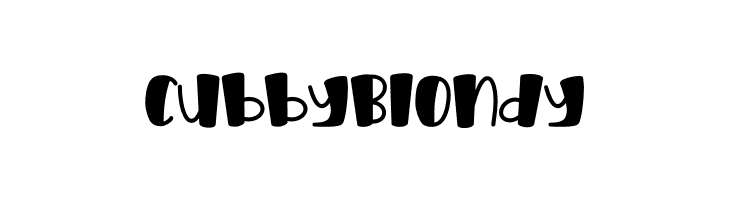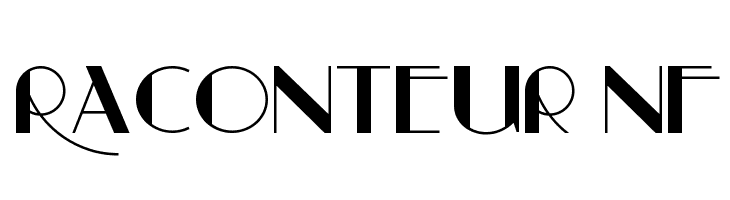
Bienvenue dans Polices Populaires — là où se rencontrent popularité et qualité. Voici les polices les plus téléchargées et utilisées cette année. Pour des choix sûrs (logos, web, social), commencez ici.
Chaque police phare se distingue par équilibre, lisibilité et polyvalence. Vous trouverez des sans‑serifs modernes, des scripts élégantes, des serifs vintage et des displays minimalistes.
( Fonts by Marty Bee - www.martybee.com )
A gothic, spider web-inspired decorative font with sharp, jagged edges.
( Fontry - M.G. Adkins - www.thefontry.com/ )
A bold, geometric outline font with a modern, neon-like appearance.
A clean, modern sans-serif font with a thin weight and minimalistic design.
( Fonts by Md Shohail Bhuian )
A playful, bold font with rounded, thick strokes and a friendly appearance.
A clean, modern sans-serif font with consistent stroke width and balanced spacing.
( Fonts by Inermedia Studio )
A playful, bold, and bubbly font ideal for children's content.
( mightype - creativemarket.com/mightype )
An elegant, flowing script font with a natural handwritten style.
( Xane )
A whimsical and decorative serif font with playful curls and flourishes.
( Fonts by Graham Meade - GemFonts )
A decorative font with a hollow, zigzag outline for a bold, artistic look.
( Durango - www.facebook.com/durangofonts )
A bold, modern sans-serif font with clean lines and strong presence.
A playful, modern font with rounded, bold characters.
A dynamic and expressive script font with a fluid, handwritten style.
( Fonts by Alejandro Zapata )
A bold, playful handwritten font with rounded, slightly irregular letterforms.
( Fonts by Darcy Baldwin {fontography} )
A bold, geometric font with characters enclosed in squares, offering a modern and structured appearance.
An elegant script font with decorative swashes and flowing cursive style.
A modern sans-serif font with geometric shapes and uniform strokes.
A bold, geometric sans-serif font with clean lines and modern appeal.
( Fonts by Nick Curtis - www.nicksfonts.com )
A bold, geometric font with modern, decorative elements and dotted patterns.
A bold, textured script font with a dynamic, handcrafted feel.
A sharp, graffiti-inspired font with elongated, edgy characters.
( Fonts by Matthew Austin Petty - www.disturbed.com )
A bold, playful font with chunky, irregular characters and a whimsical style.